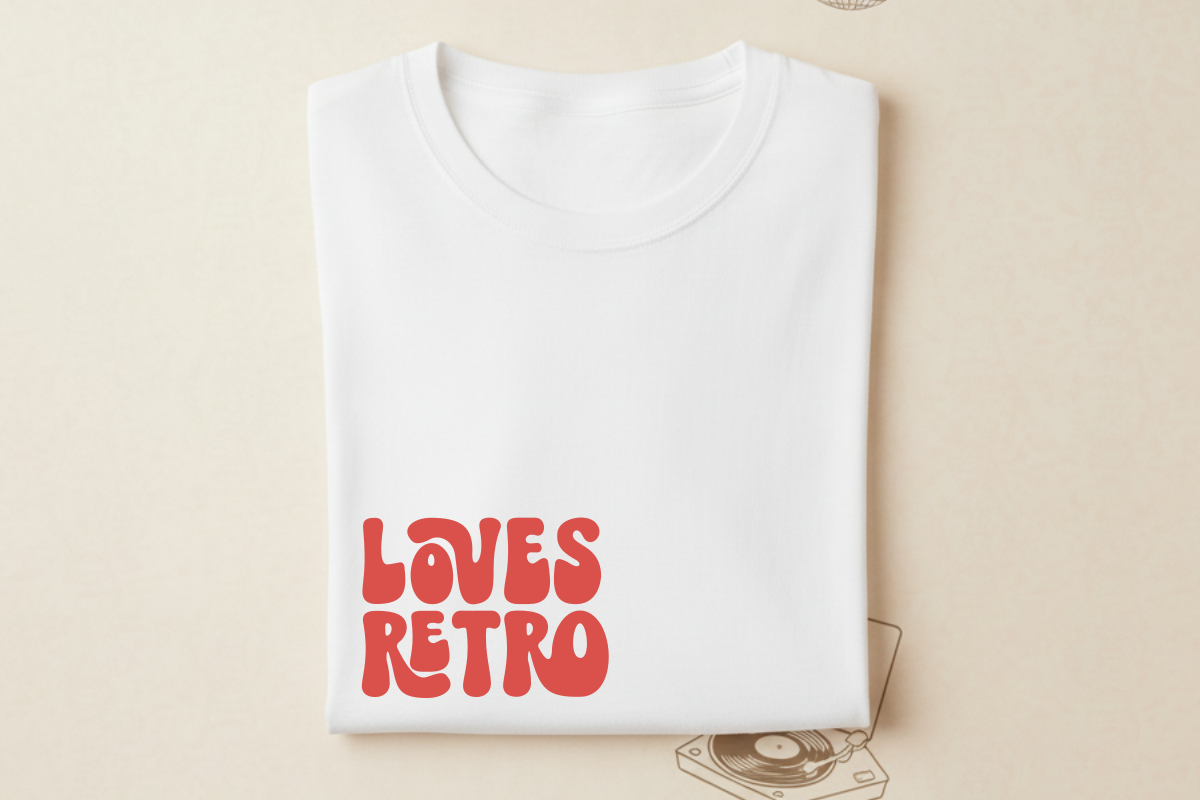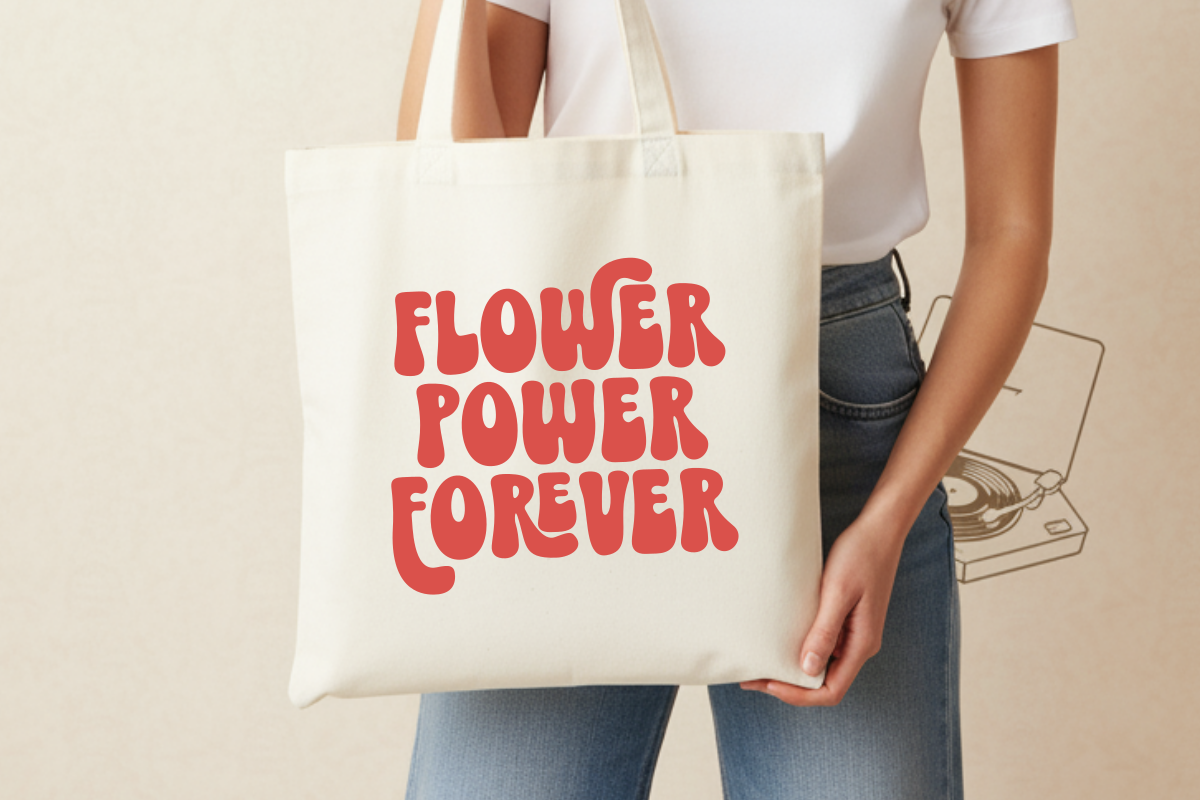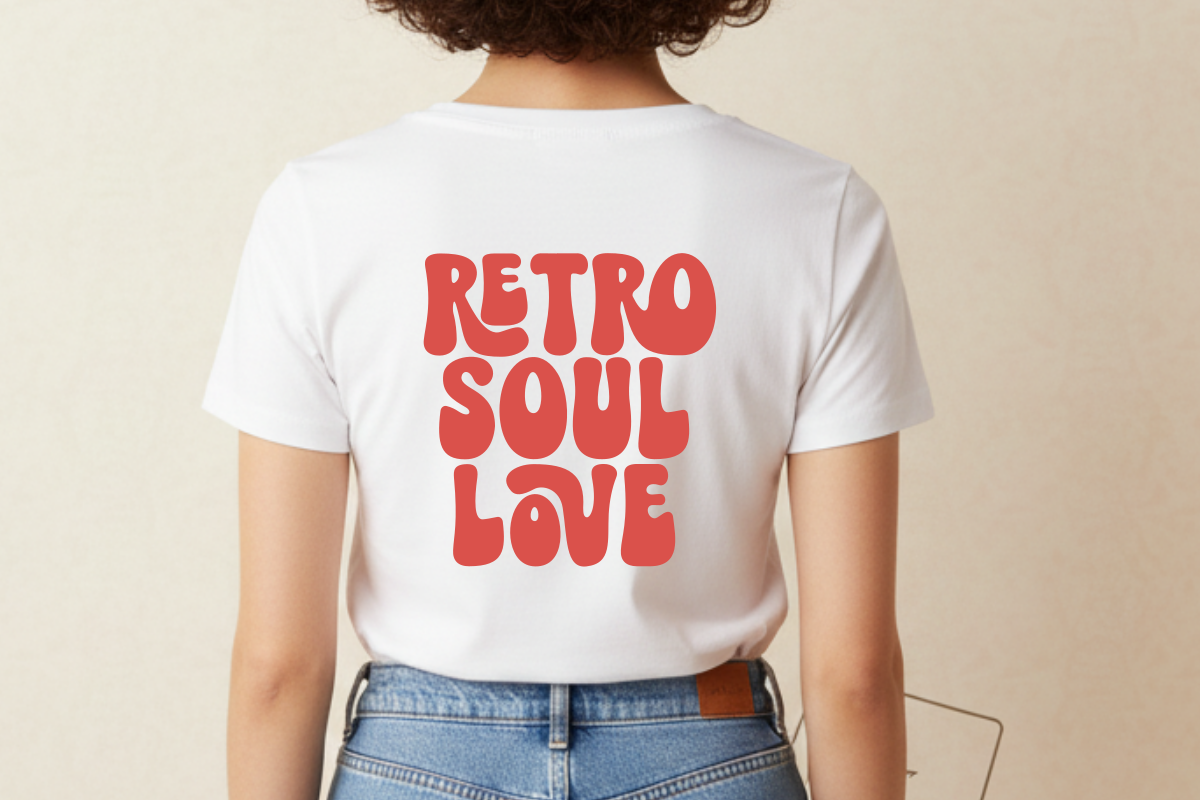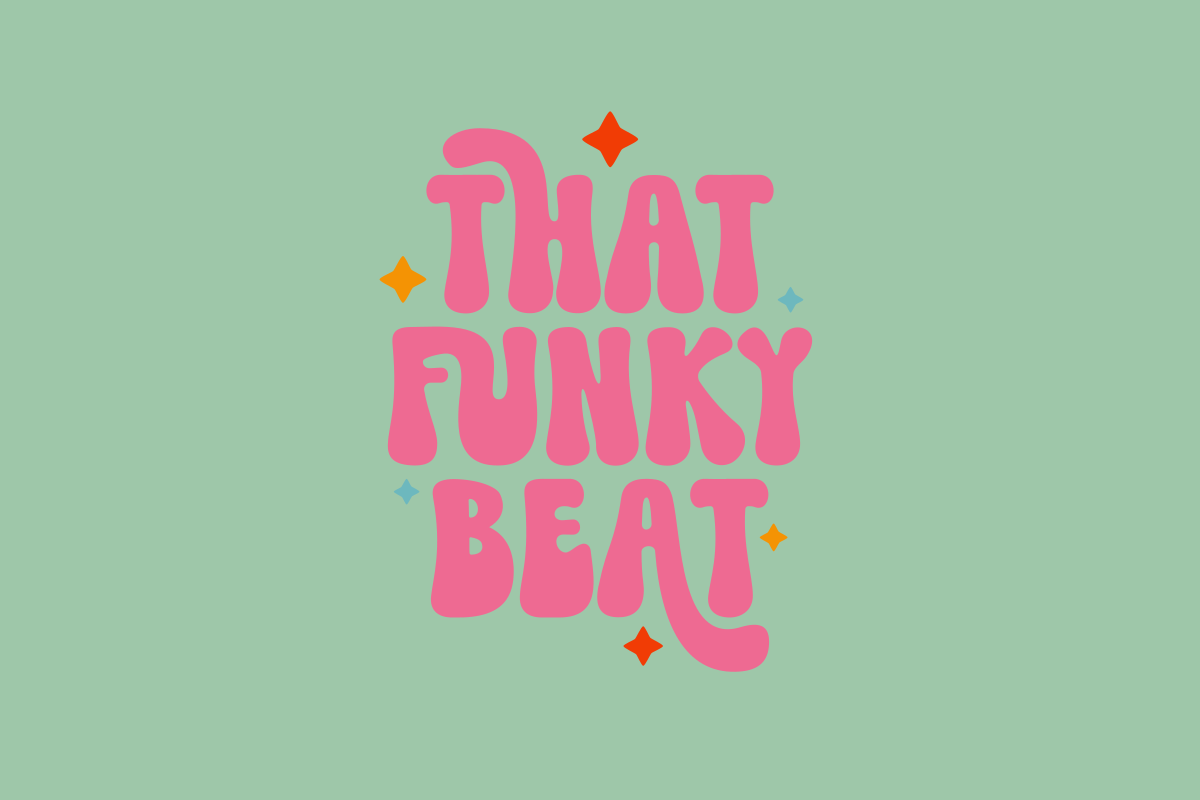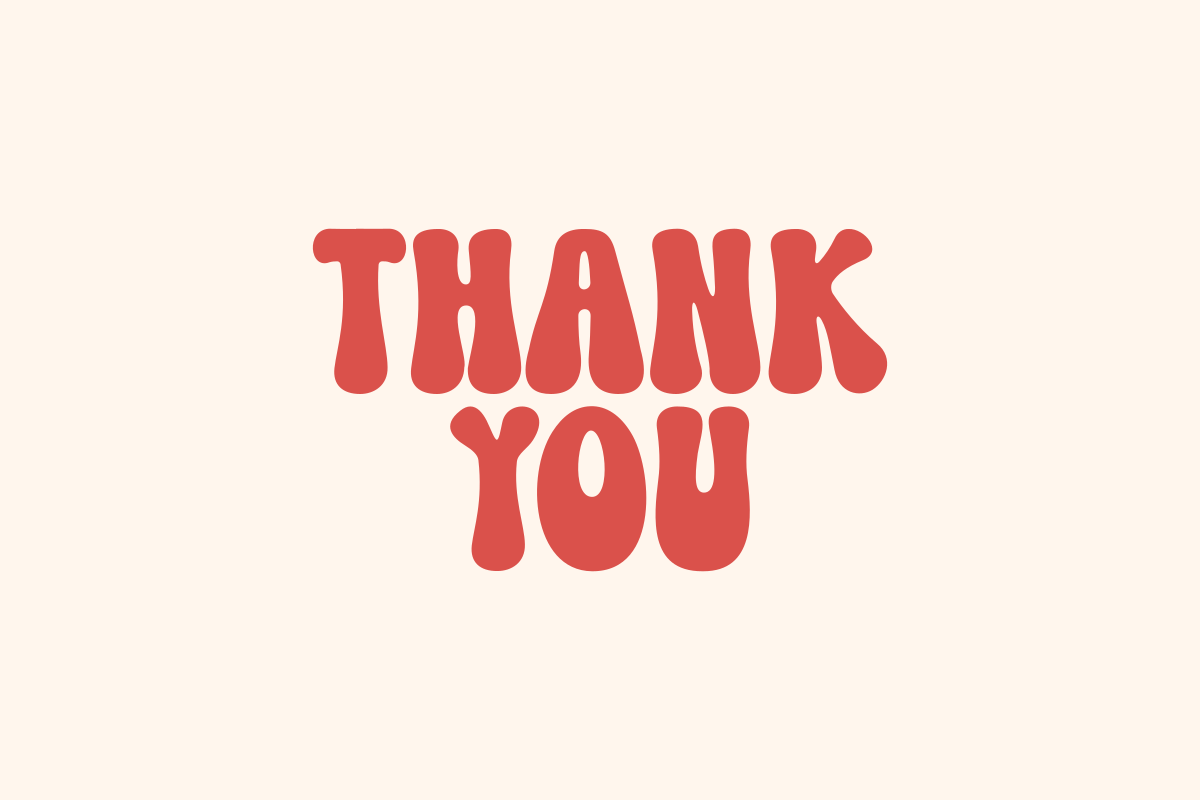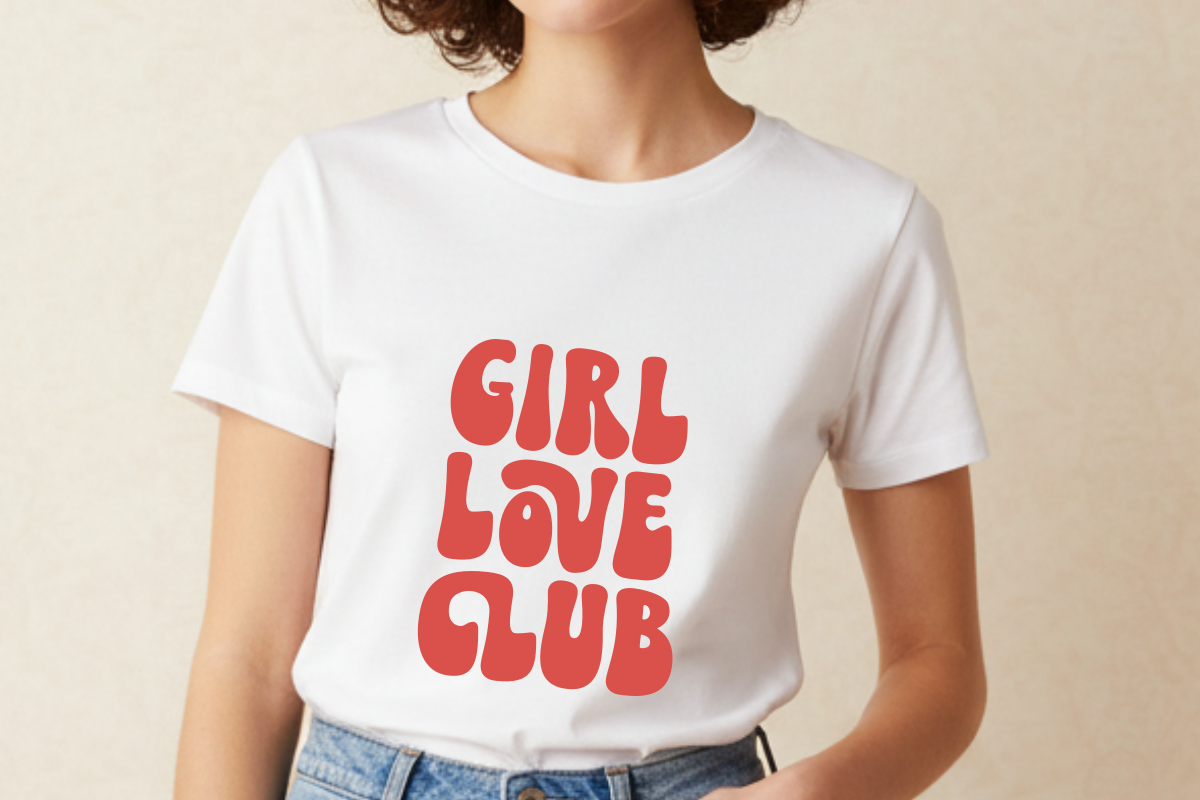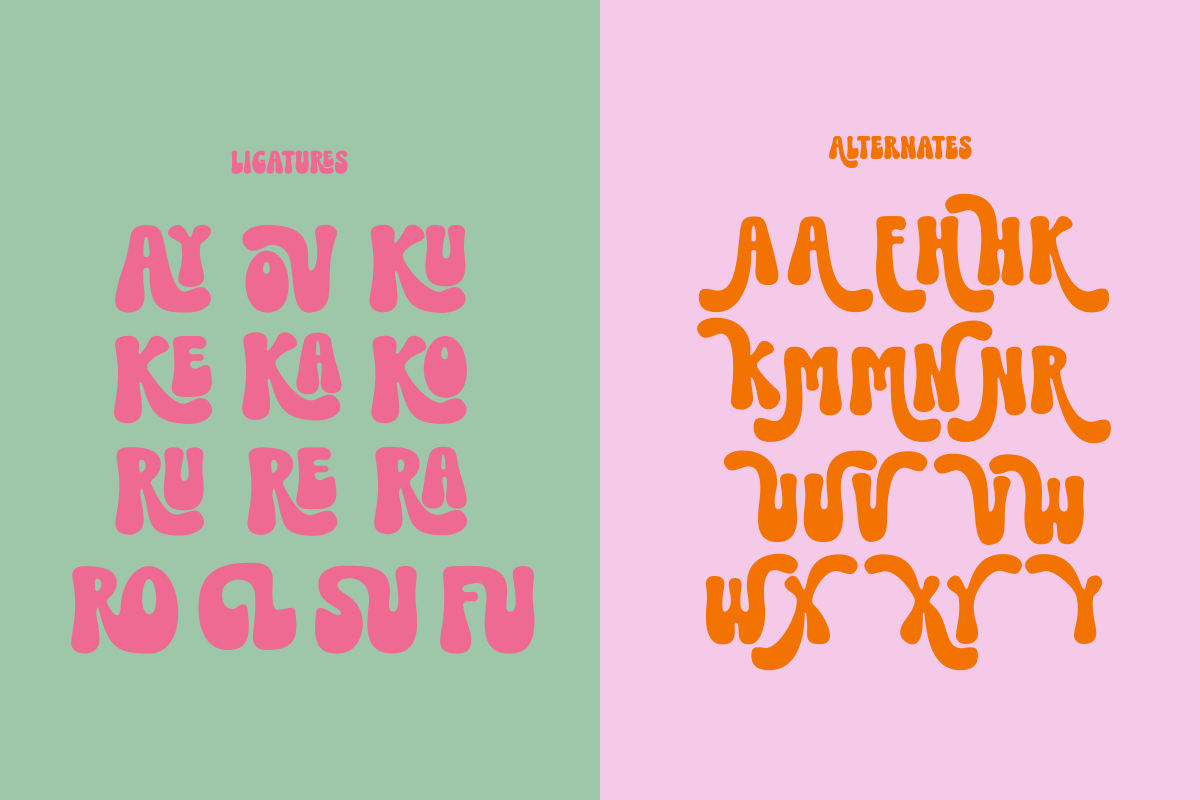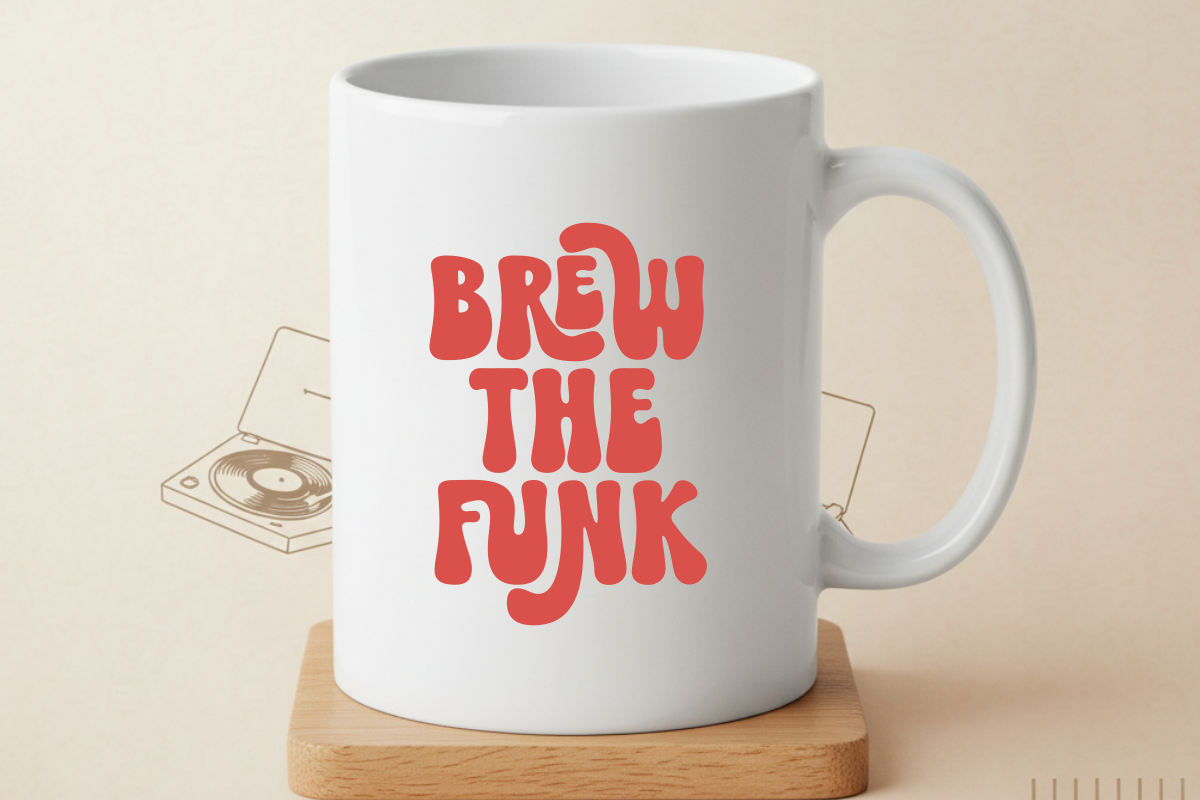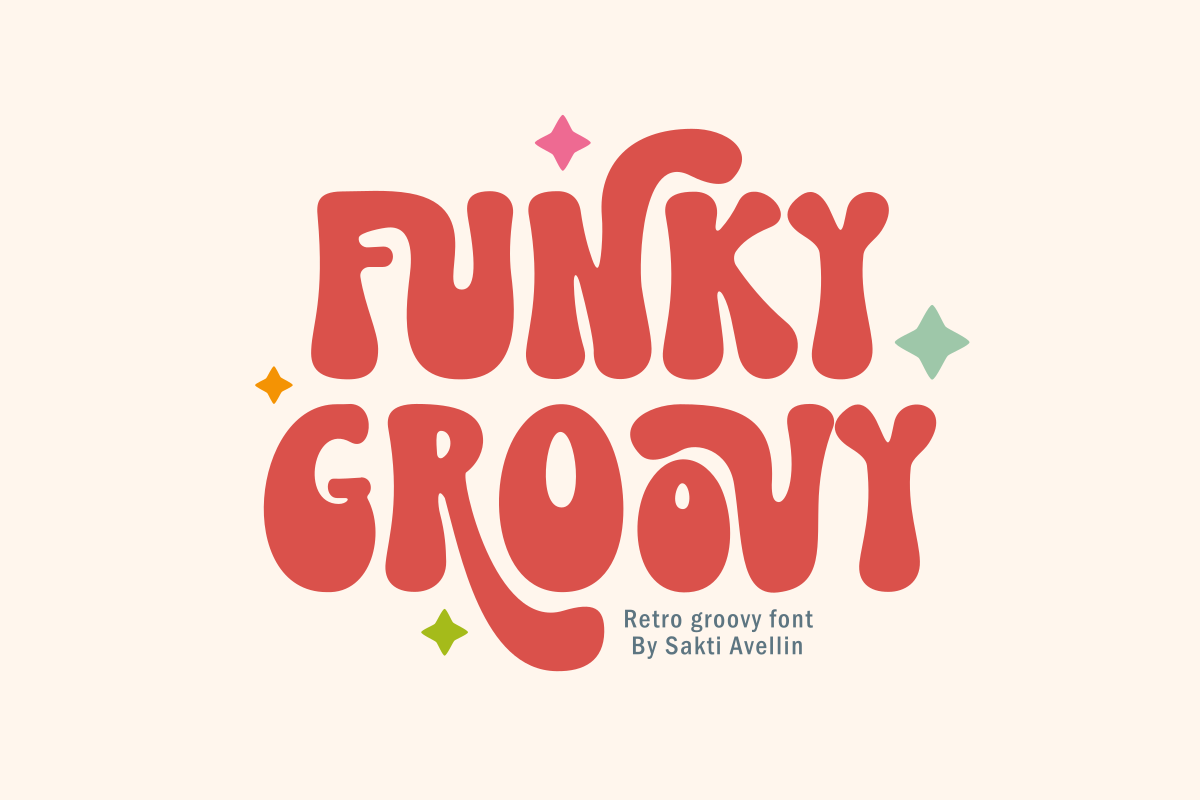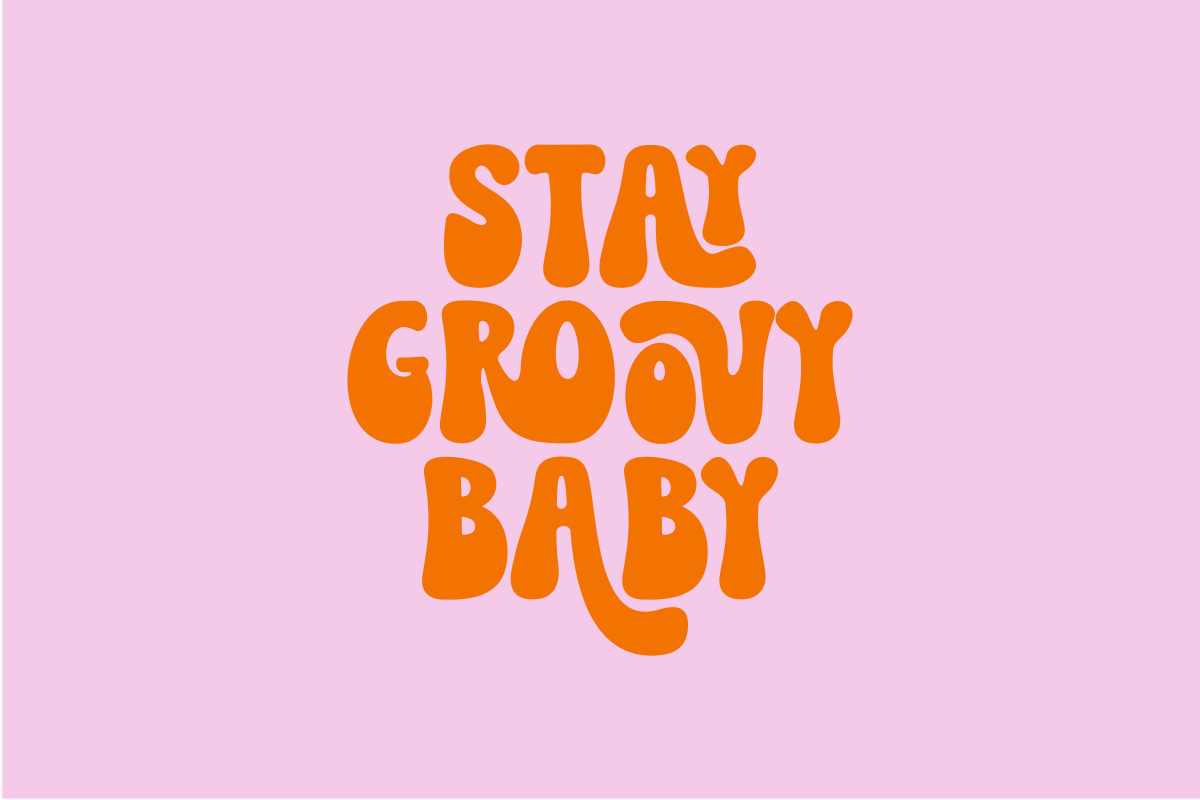
Funky Groovy - Retro Groovy Font
Funky Groovy is a vibrant and retro groovy font designed to bring a soulful, nostalgic 70s vibe to your modern creative projects. This wavy display typeface features playful, fluid letterforms and a psychedelic aesthetic, making it an essential choice for vintage branding, funky posters, retro apparel, and eye-catching social media graphics. Its organic, bouncing rhythm and bubbly silhouette ensure your headlines stand out with a unique, handcrafted charm. Whether you are designing for summer festivals, retro stickers, or whimsical greeting cards, Funky Groovy adds a spirited and rhythmic twist to every design.